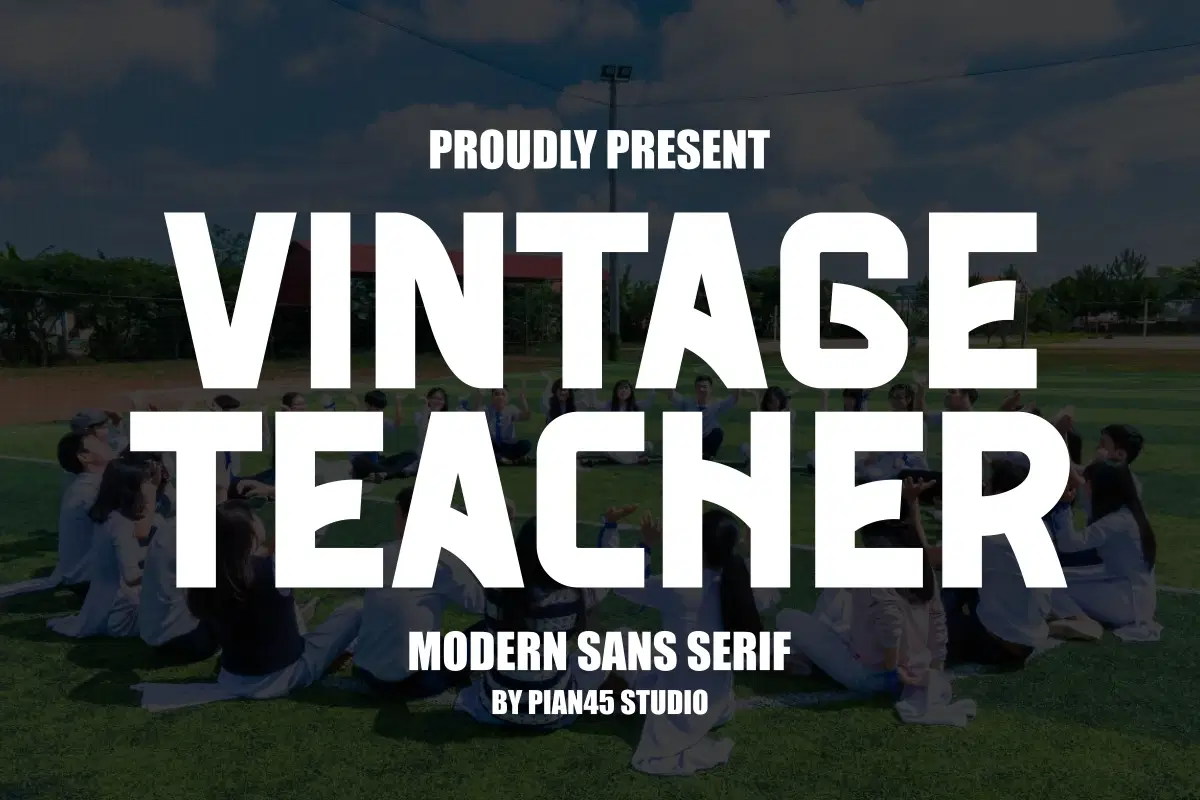
Vintage Teacher - Modern Sans Serif Font
Vintage Teacher is a bold unique and captivating modern sans serif typeface. This charming font is perfect for adding a touch of elegance and style to your design, Vintage teacher brings a sophisticated yet contemporary flair to any project. Perfect for quotes, backgrounds, posters, t-shirts, tote bags, mugs, hats and sportswear.